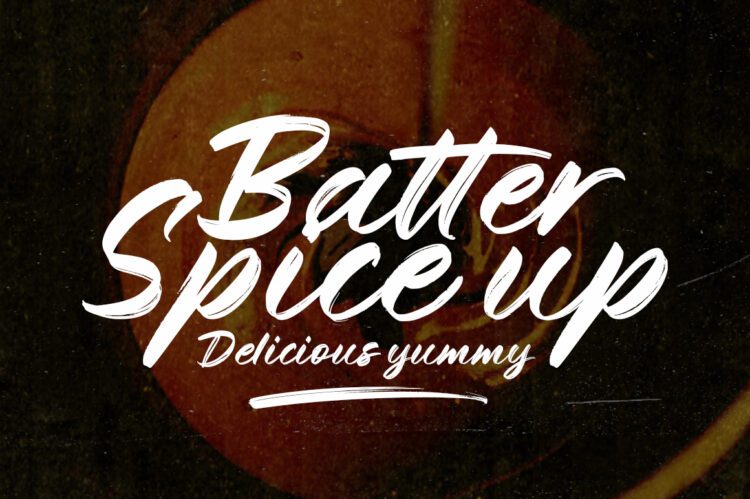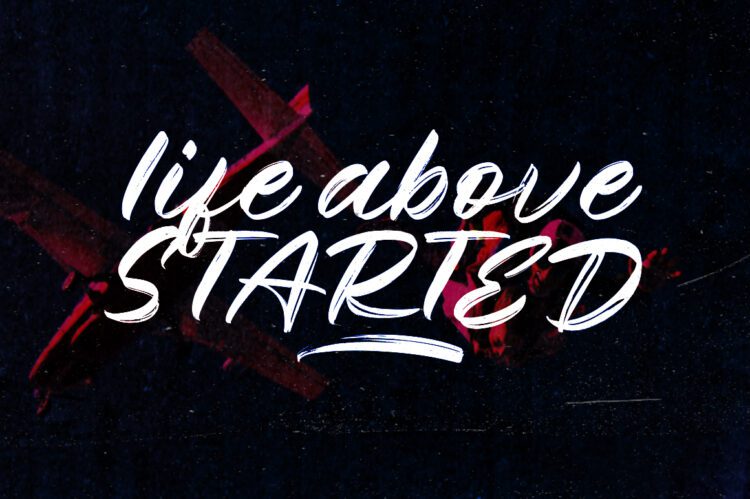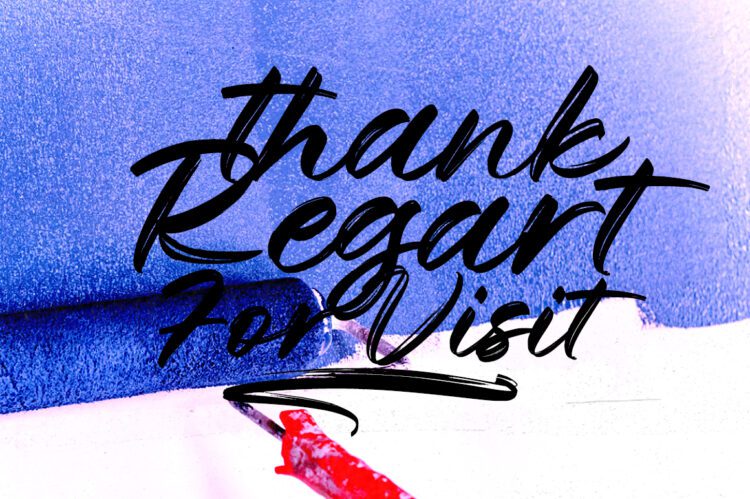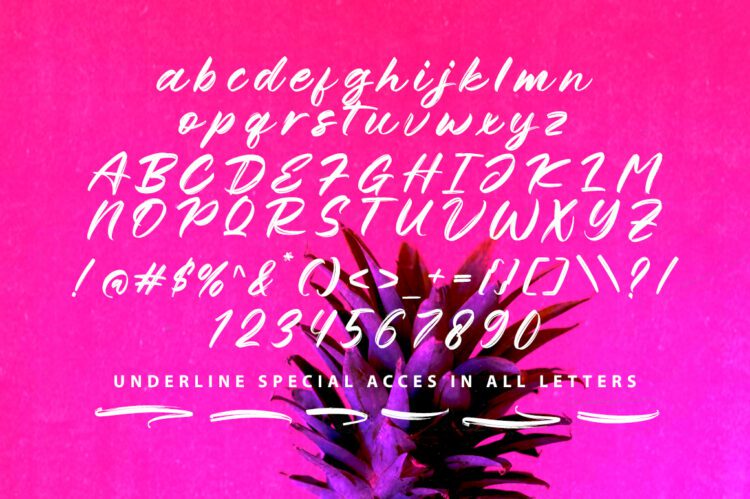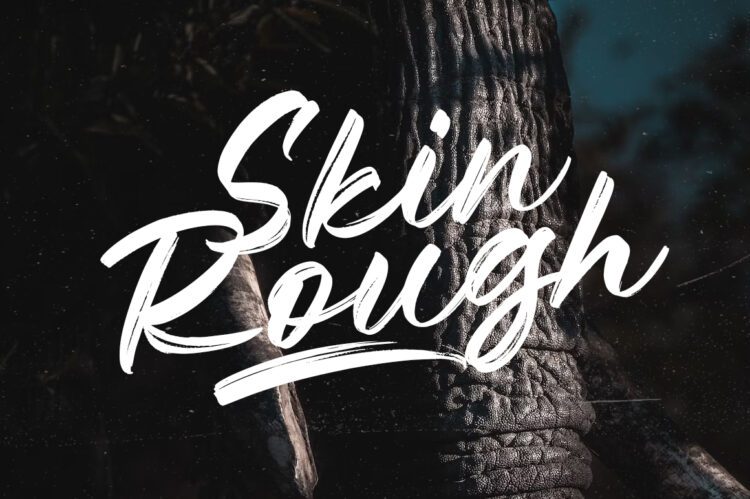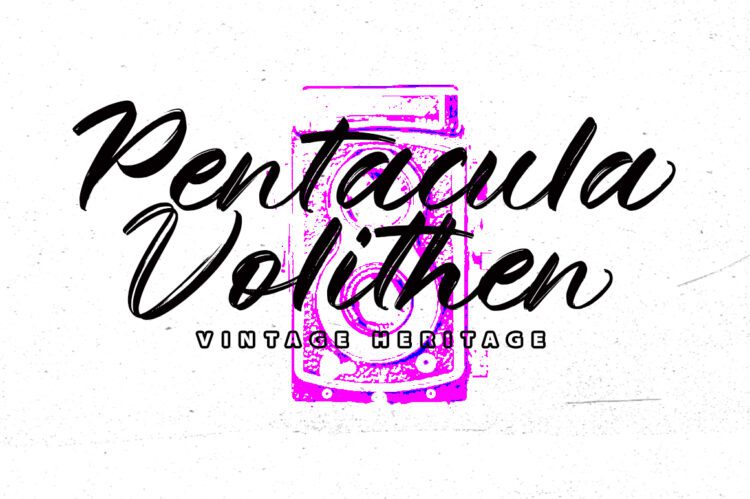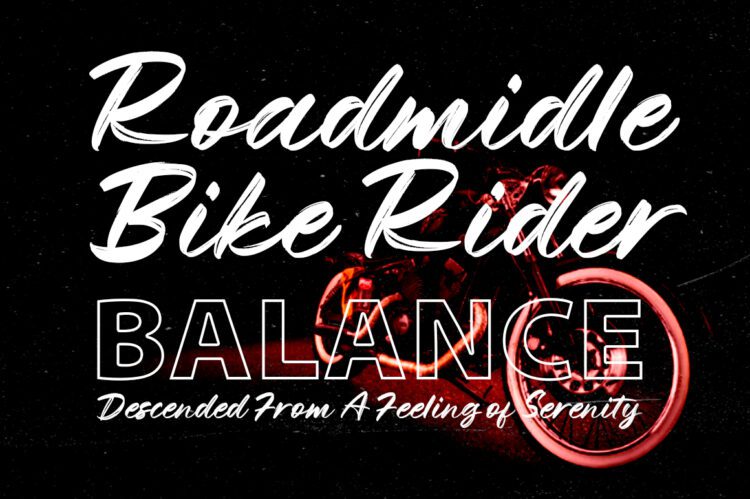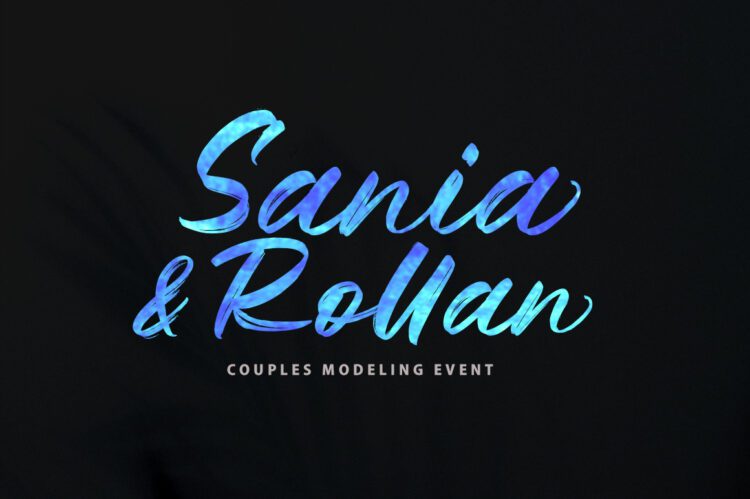
Stabelo
Stabelo is an elegant brush font. Special character handwriting, Solid and original, Made for branding any professional project. It is best for logos, branding, and quotes.
This package also has many underline alternatives that make your texts and designs more attractive.
Stabelo – an elegant brush font